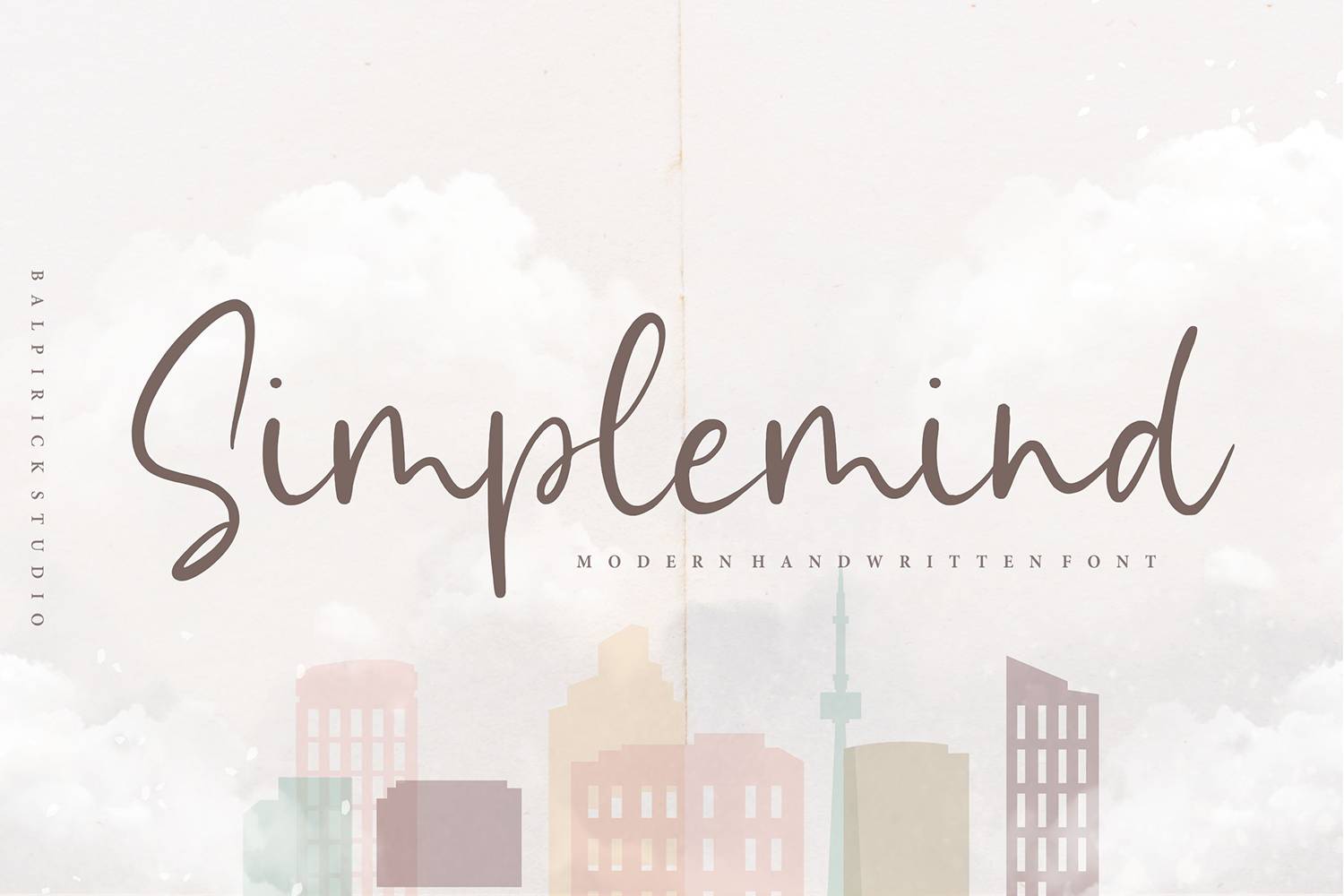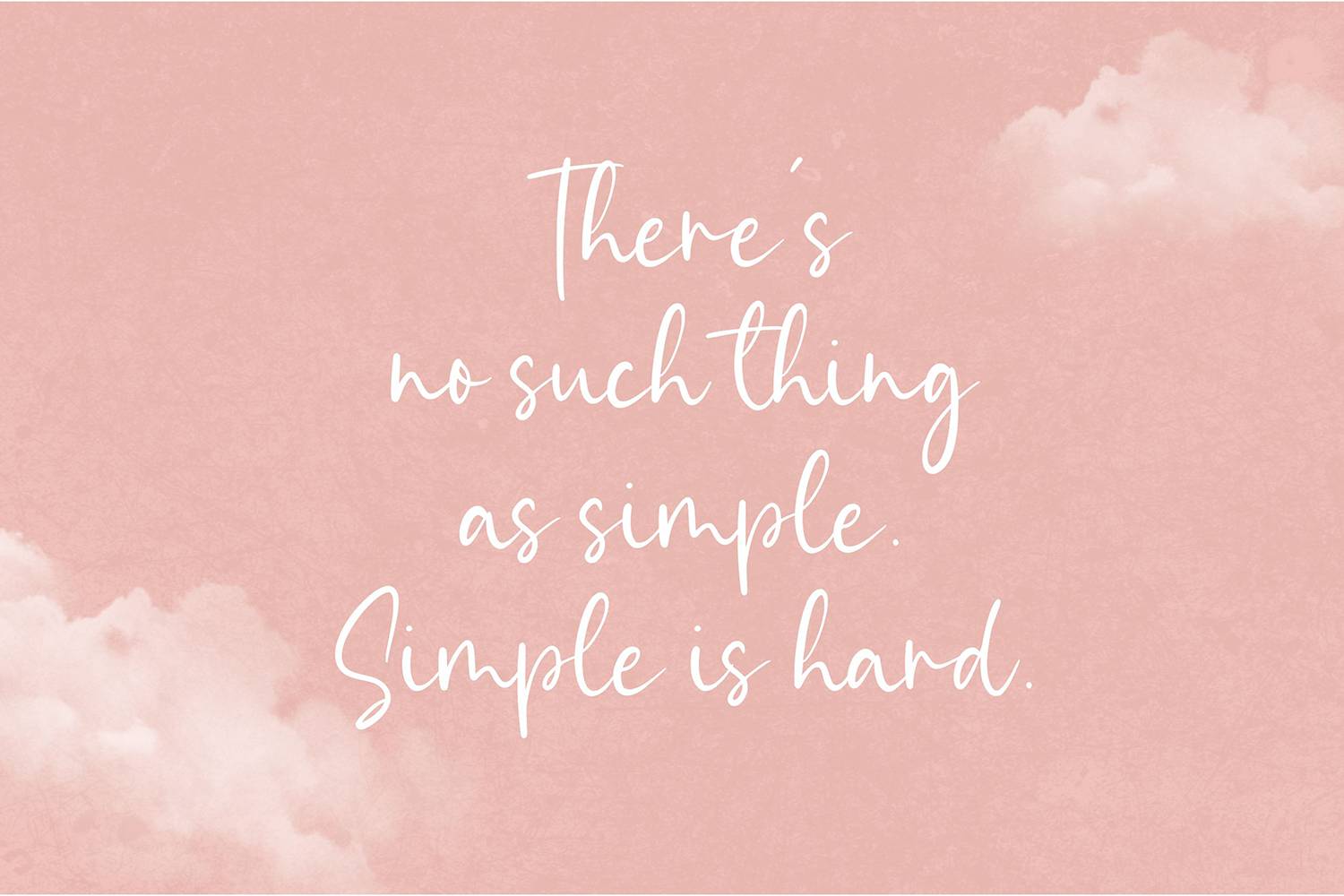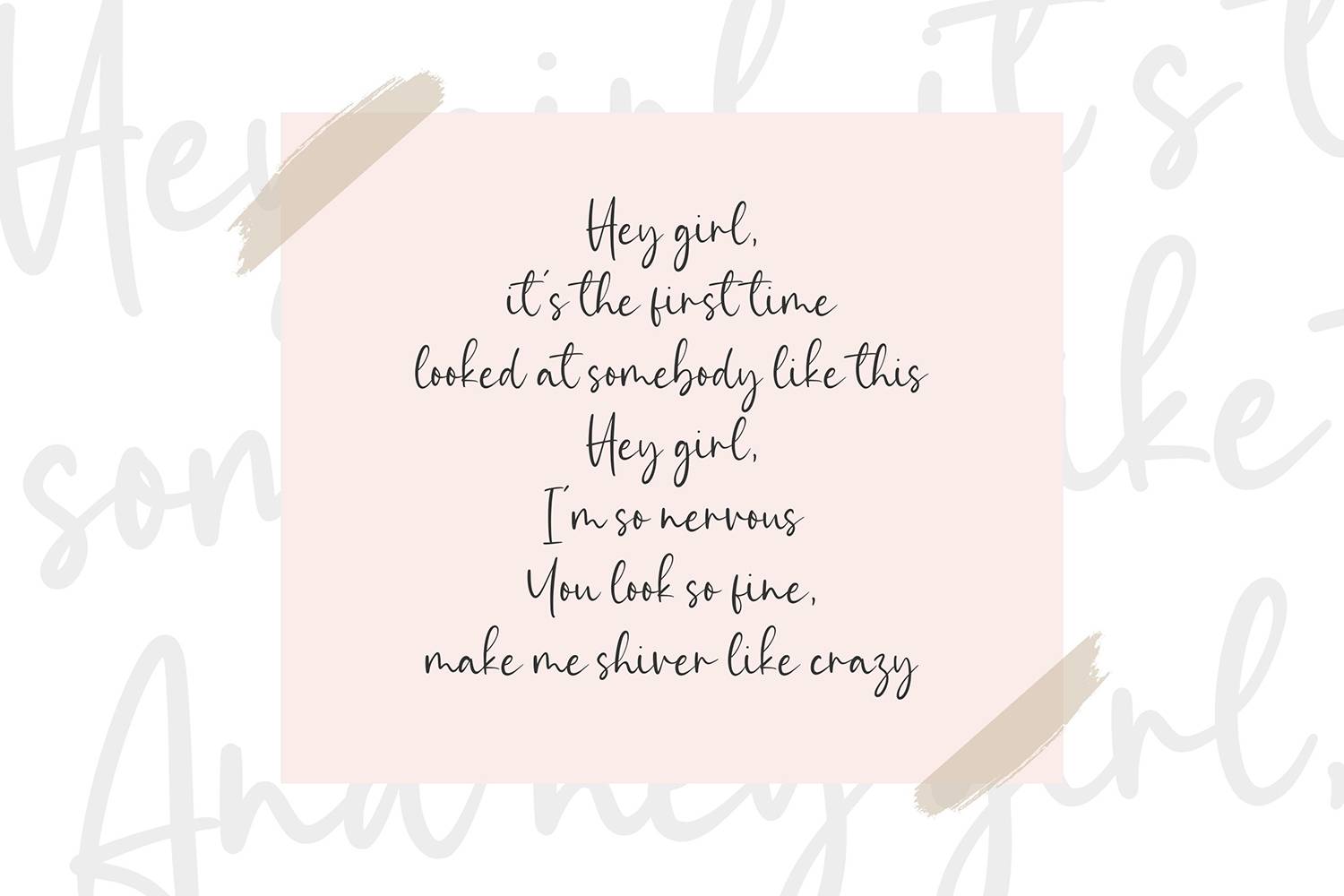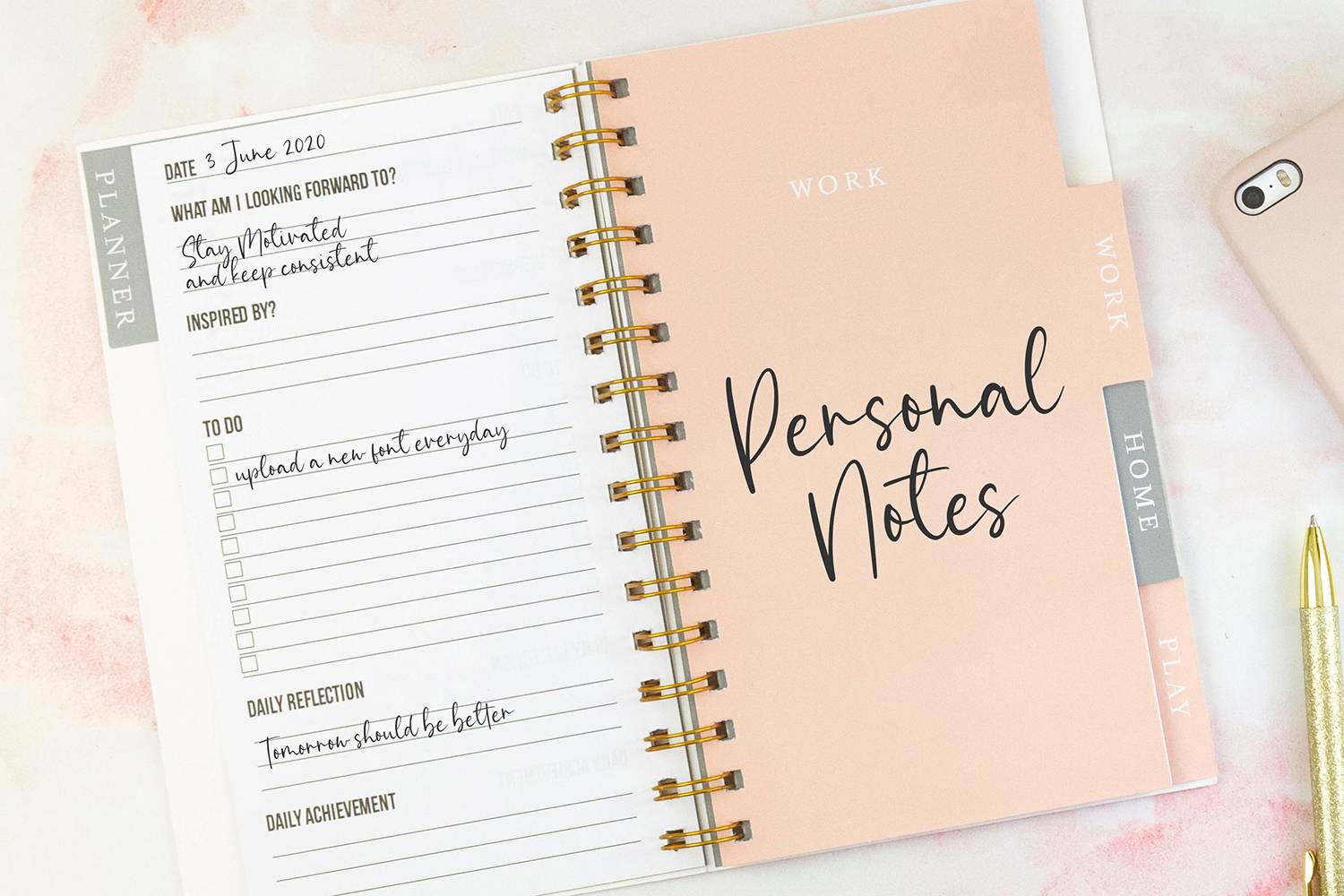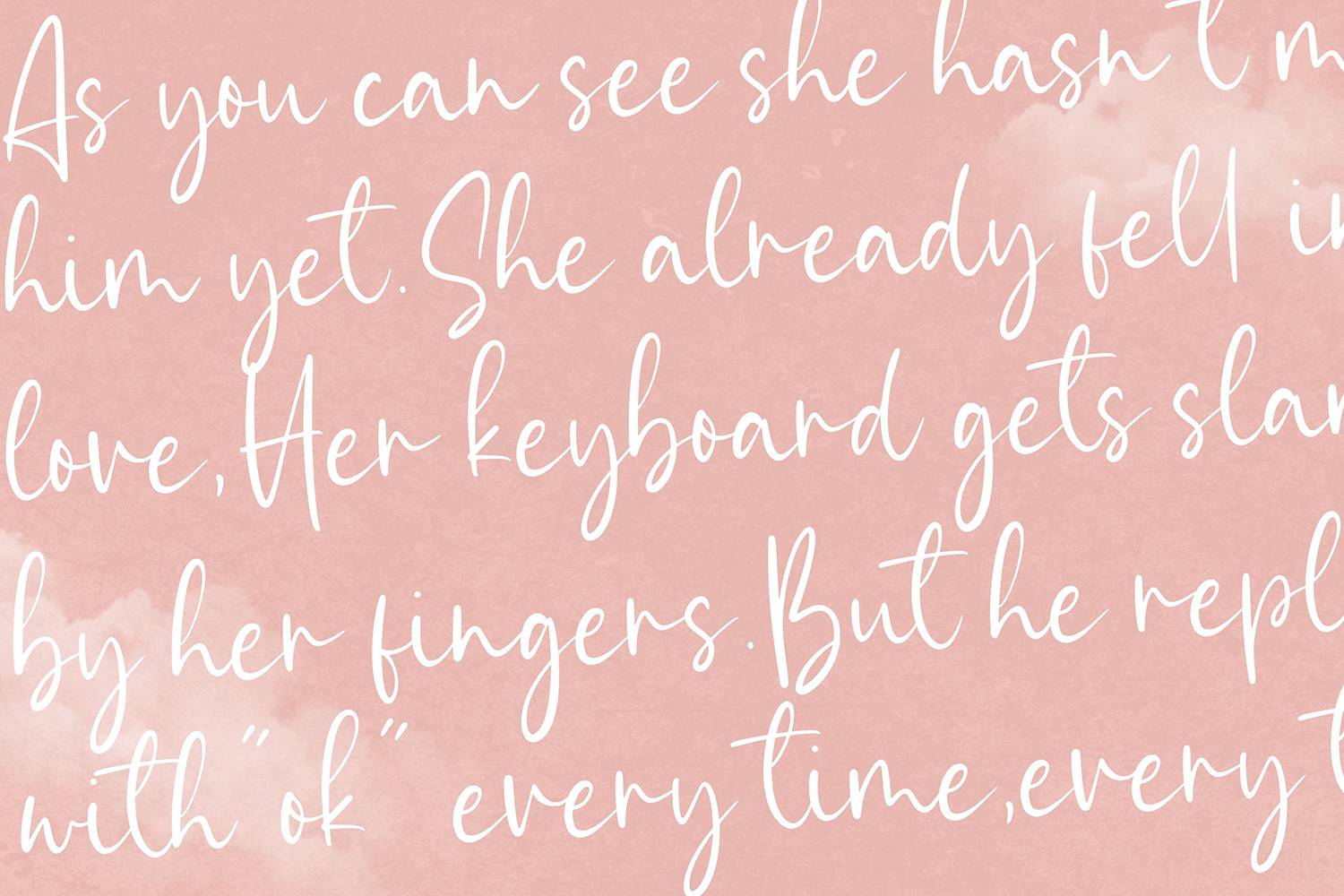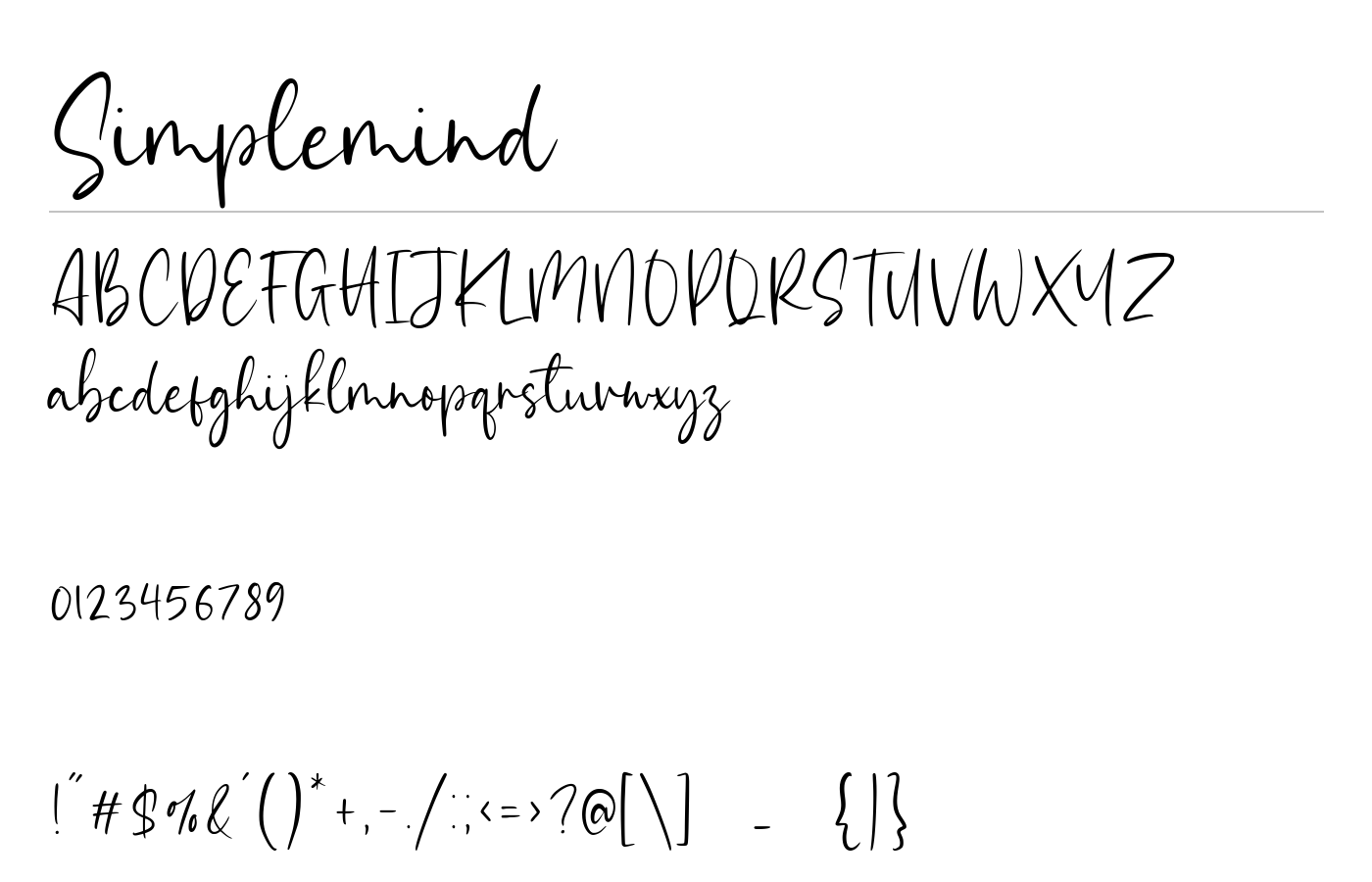
Simplemind is a light, casual script font with a handwritten, playful feel. Its tall, slender letterforms and gently looping strokes give it a friendly and approachable personality, making it perfect for creative projects, personal branding, and informal communication. This font works well for logos, invitations, and social media graphics where a warm, human touch is desired.
Simplemind Font
About Simplemind Font